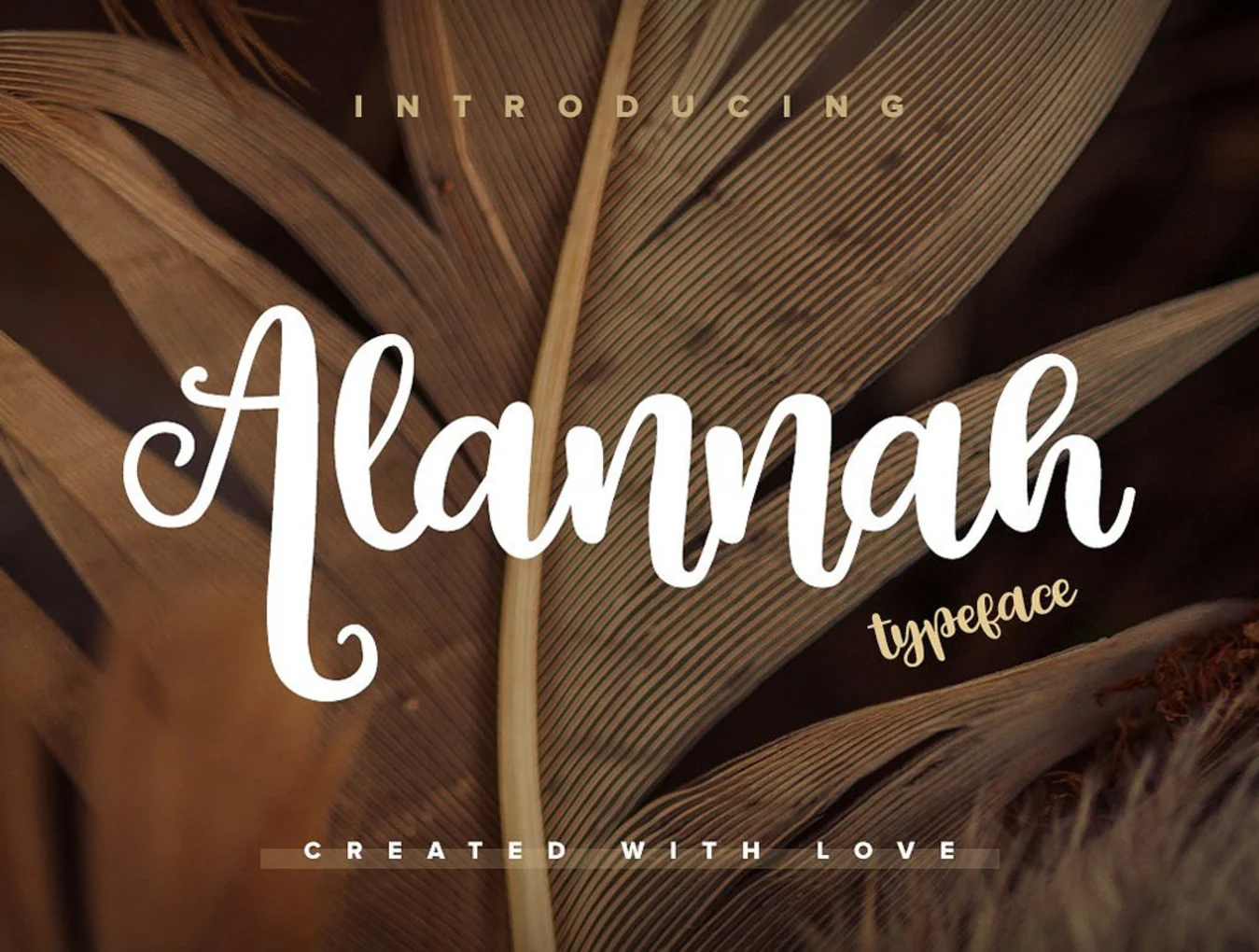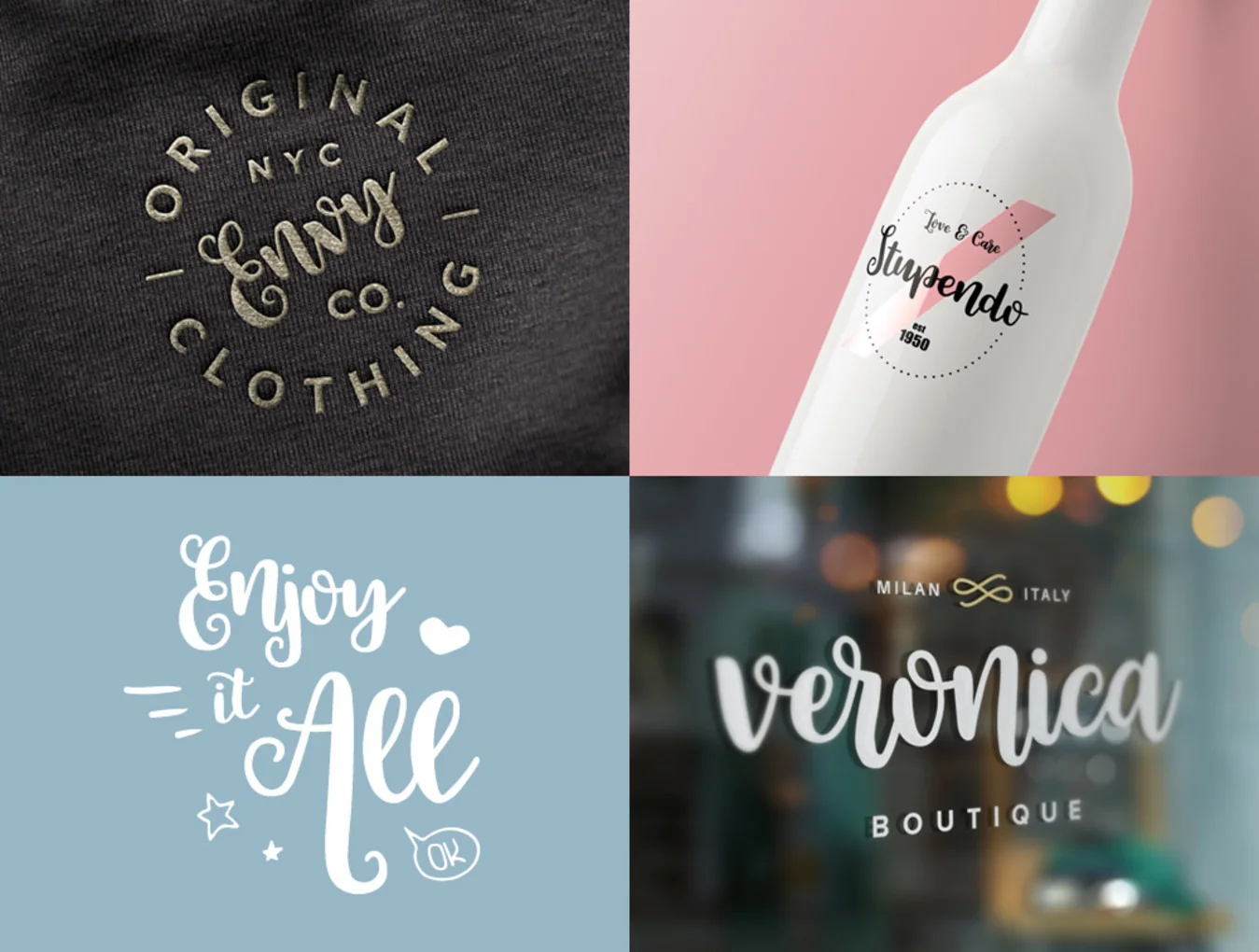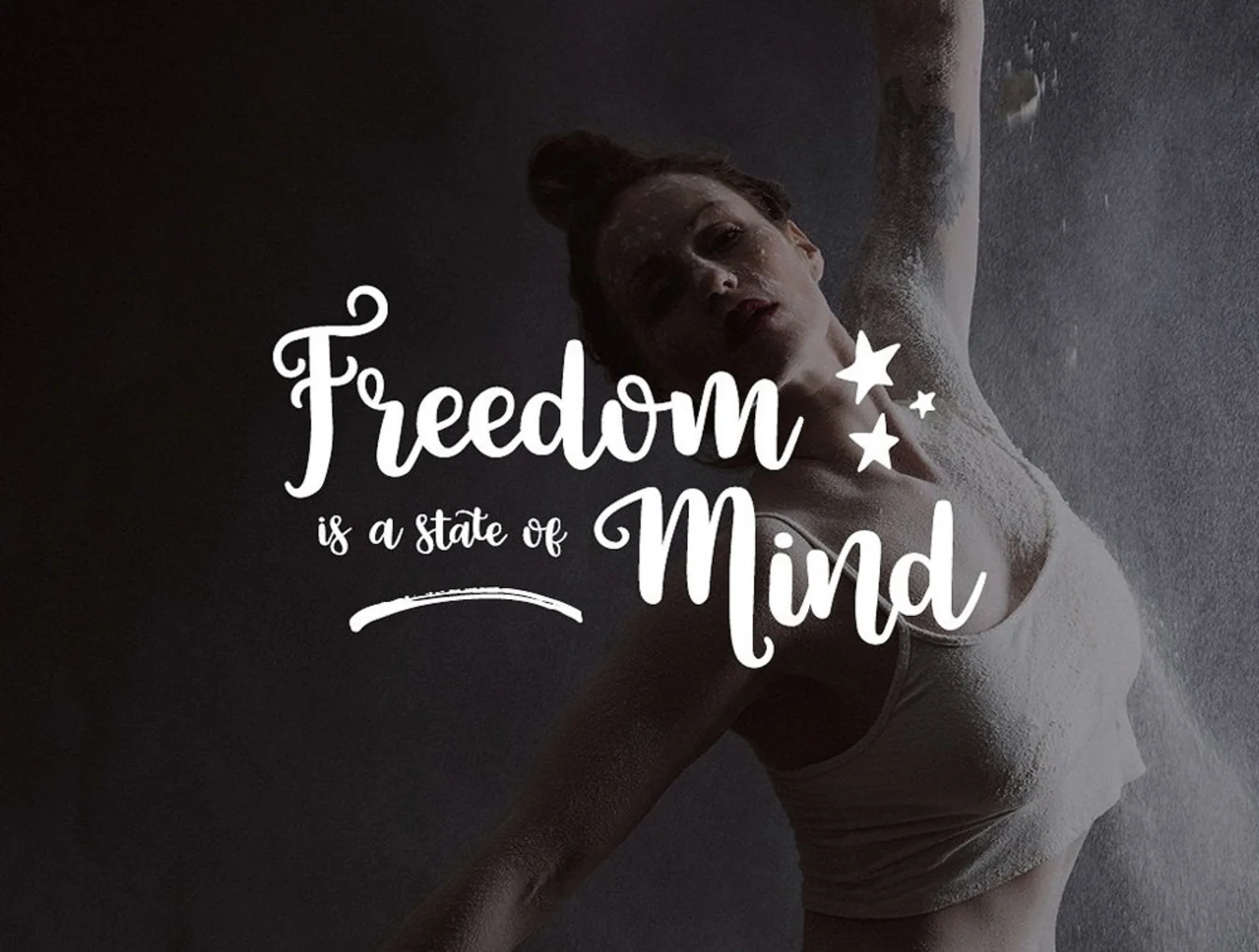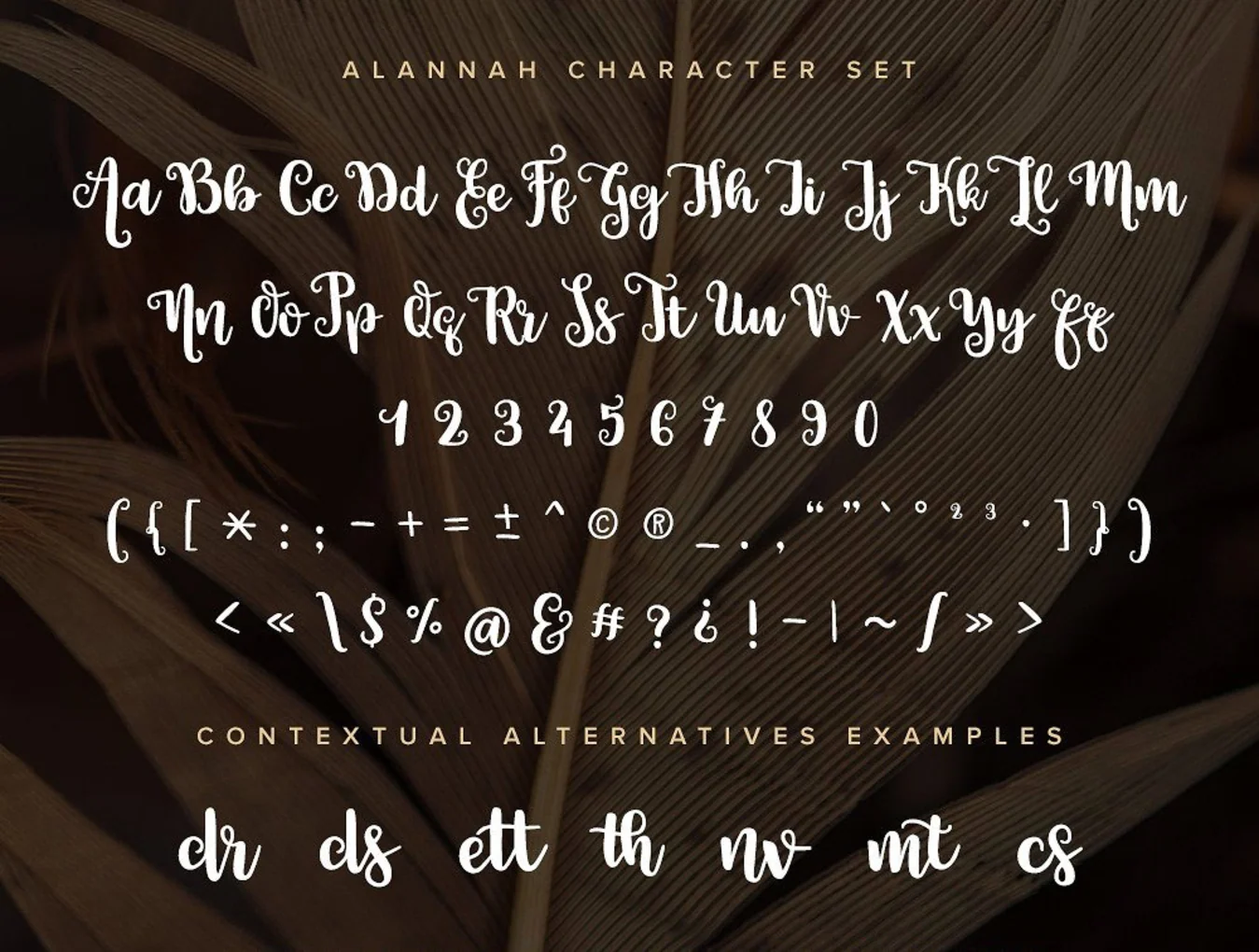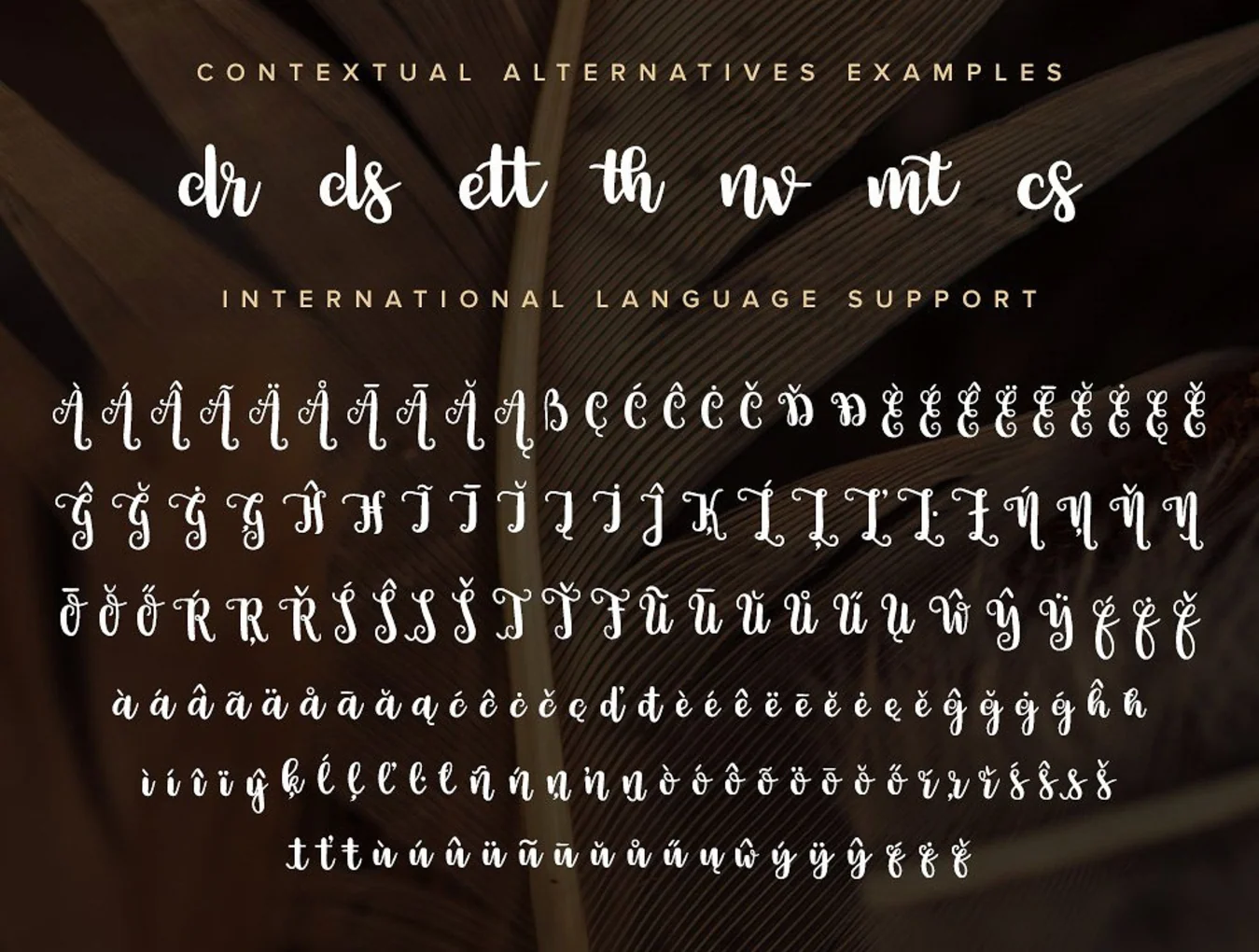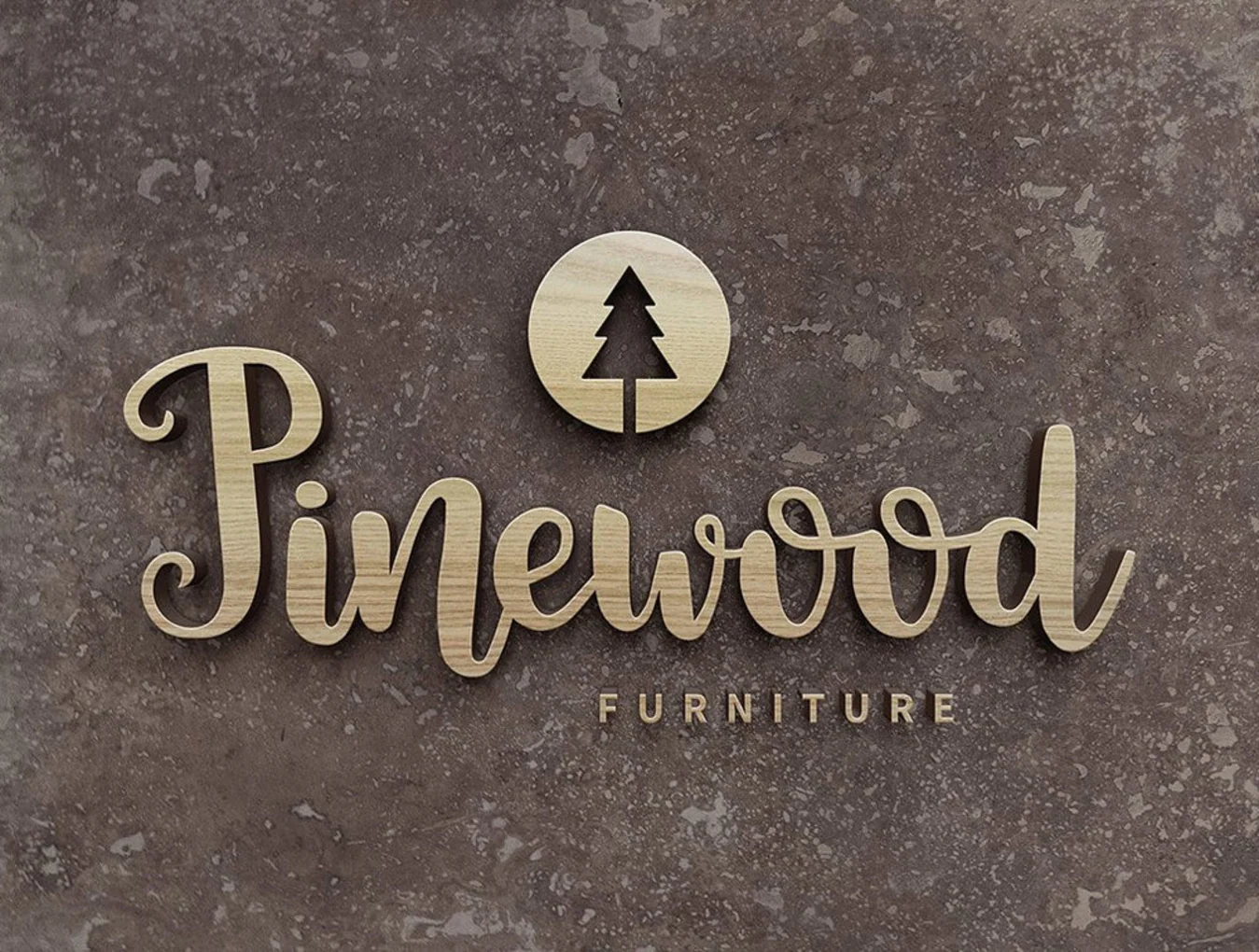
Alannah Script Font
An expertly made OTF script typeface with a passionate touch.
Handwritten-style lettering
Extensive OpenType capabilities
Context-sensitive alternate glyphs
Alannah Script is Pixelbuddha’s debut typeface, created with Junik Studio to bring cheerful, playful energy and an authentic hand-lettered look. Easy to use in any design project, this carefully built font includes broad international language support plus rich OpenType features, such as contextual alternates and ligatures.